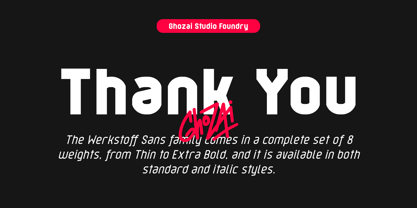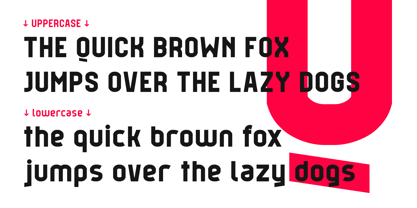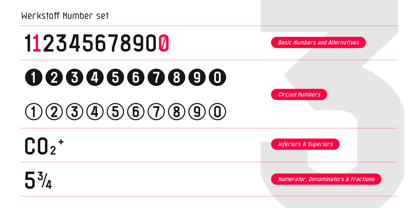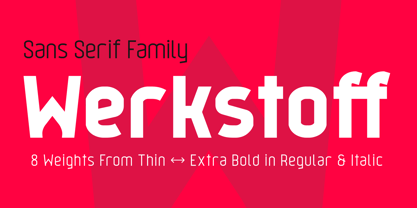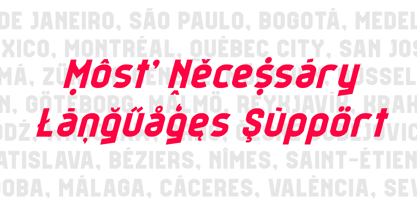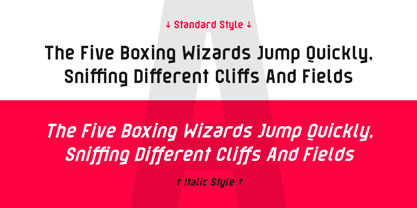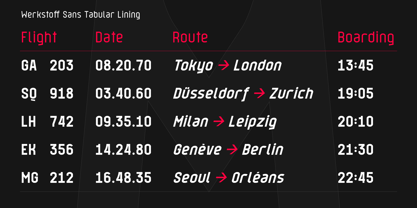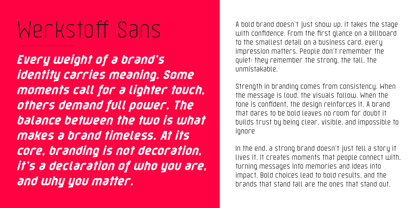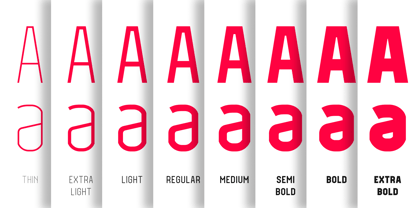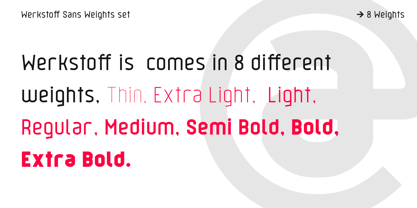
Werkstoff
by Ghozai Studio
The Werkstoff Font Family was designed by Manzur Ghozaali and published by Ghozai Studio. Werkstoff contains 16 styles and family package options. More about this family
Werkstoff is a grotesk-sans font family that offers 8 distinct weights, ranging from Thin to Extra Bold, along with both regular and italic styles, resulting in a total of 16 fonts. This extensive weight range is enhanced by a rich set of symbols, OpenType features, Tabular Lining numbers, and multilingual glyph support, ensuring versatility for various languages and design needs. Its modern, clean, and bold aesthetic makes it perfect for a wide array of applications, including display, branding, signage, festival posters, sports, and more. Whether you're crafting impactful headlines, unique logos, or clear signage, Werkstoff seamlessly combines style with functionality. Its adaptability to different design styles makes it an excellent choice for any project that requires a bold and contemporary flair.
Designers: Manzur Ghozaali
Foundry: Ghozai Studio
Werkstoff